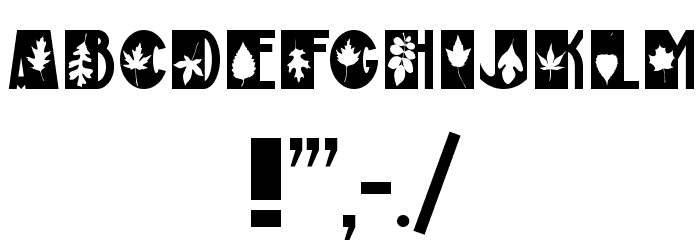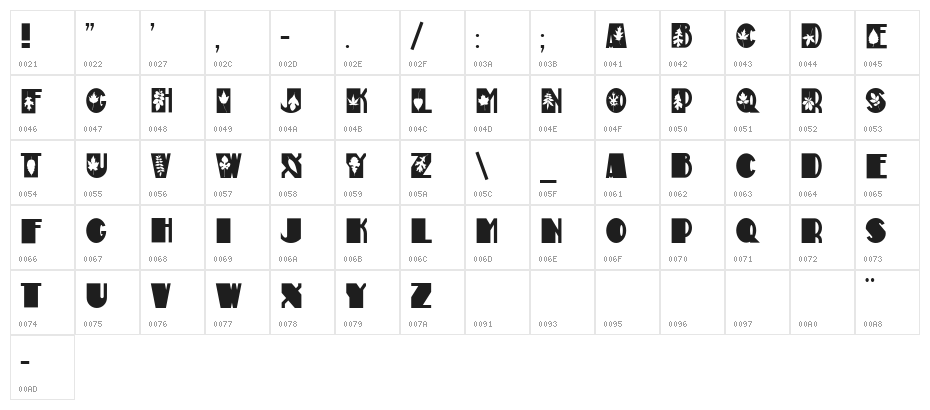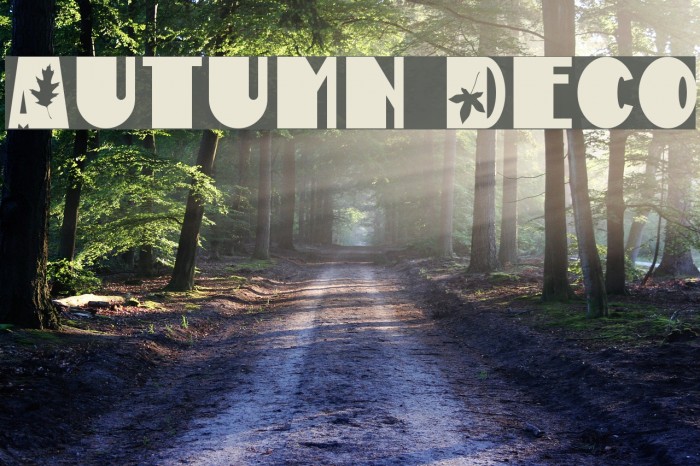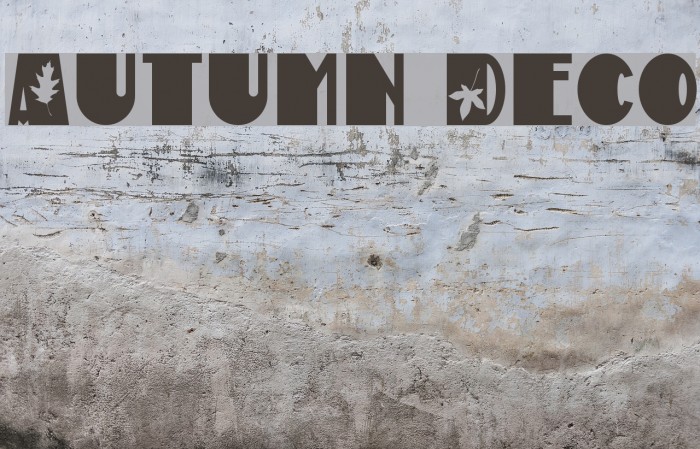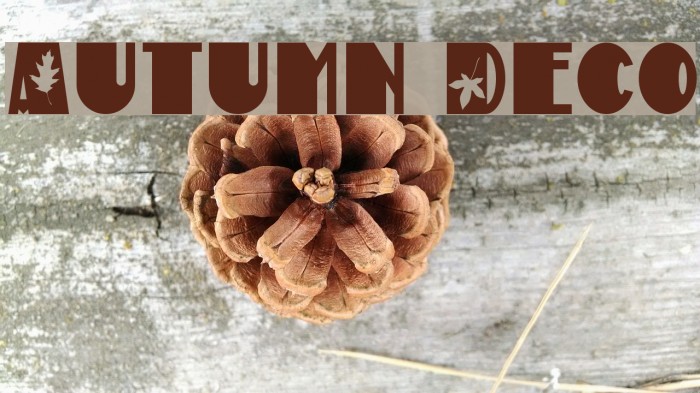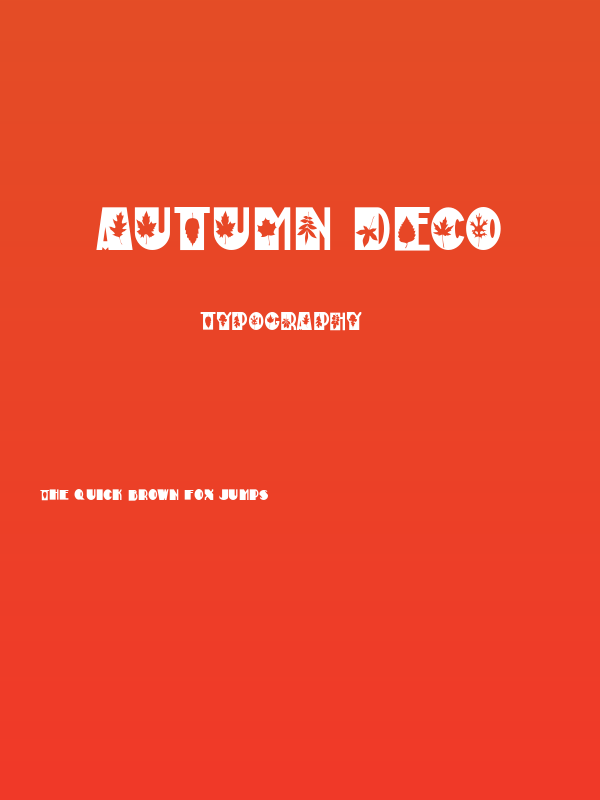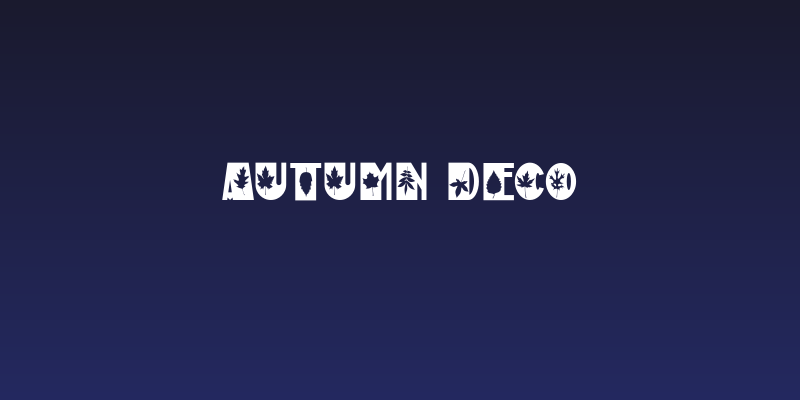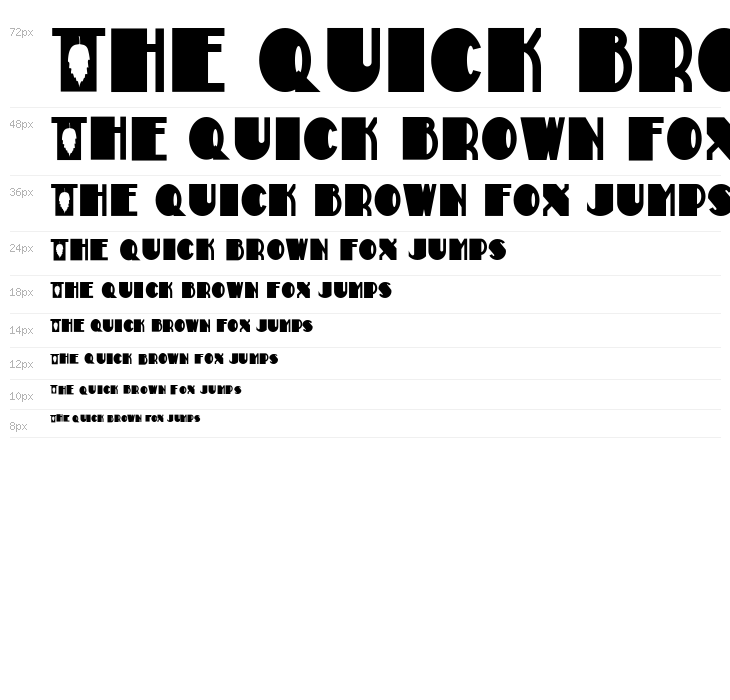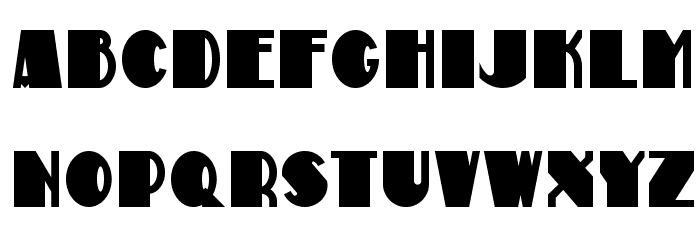
Autumn Deco Font
Autumn Deco Description
This decorative font features a unique blend of bold, geometric letterforms with intricate autumn-themed cutouts. Each character is adorned with detailed silhouettes of leaves and seasonal motifs, creating a striking visual effect. The uppercase letters are particularly eye-catching, with each letter incorporating a different leaf or plant design. The font maintains a consistent weight and width, ensuring readability while emphasizing its decorative elements. The special characters and punctuation are designed to complement the overall theme, making it ideal for seasonal projects.
| Proposed Projects | Ideal for seasonal branding, event invitations, posters, and decorative headlines. |